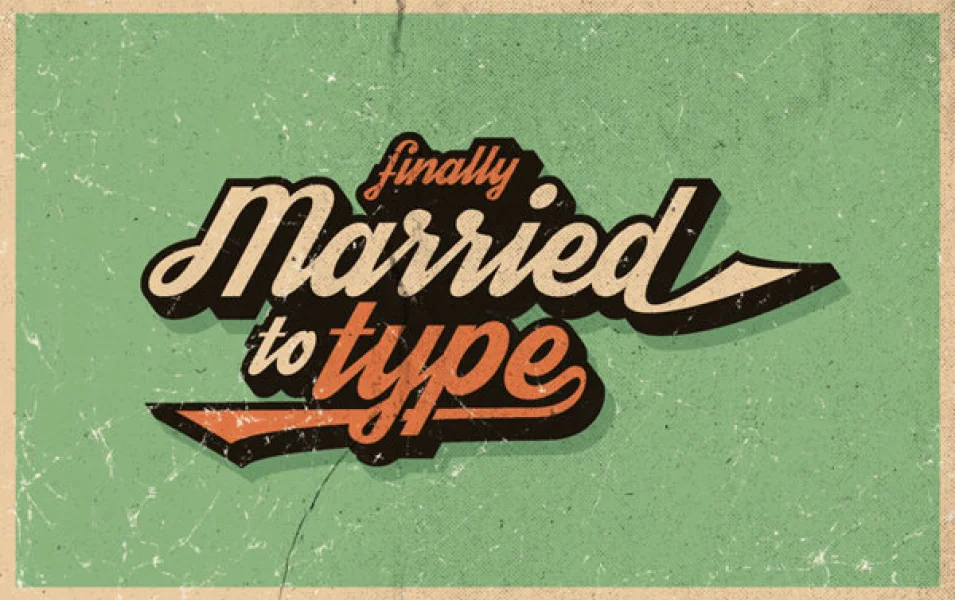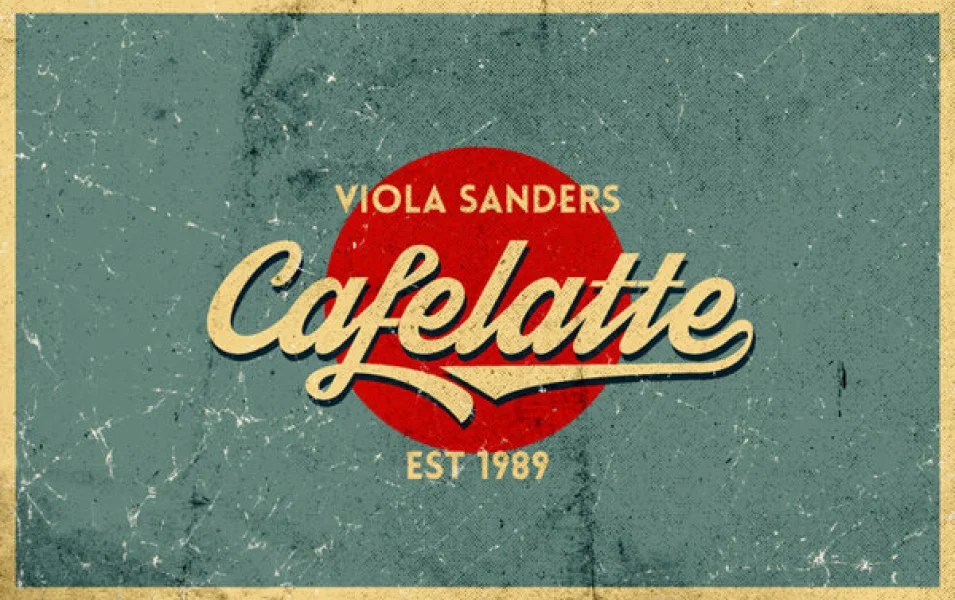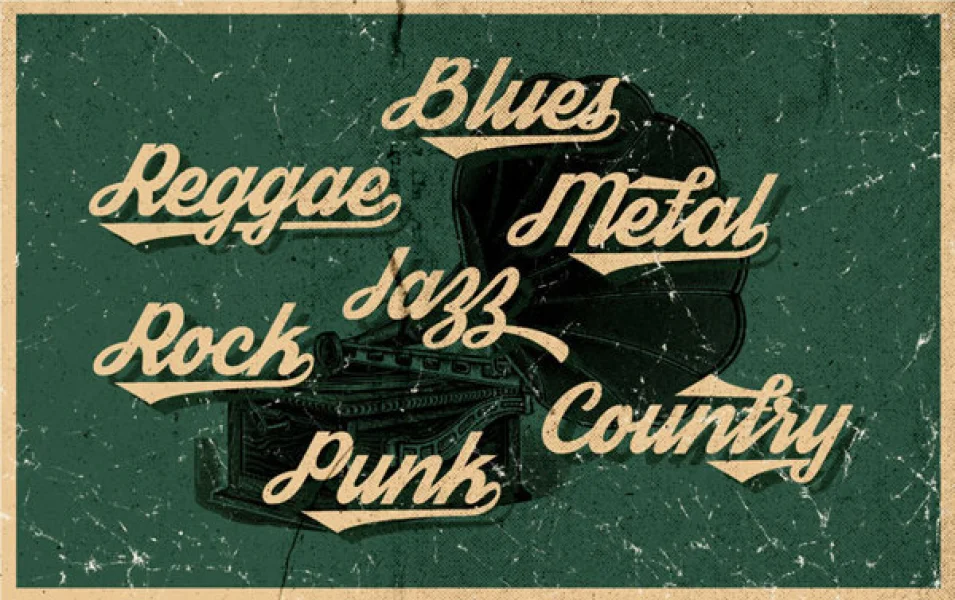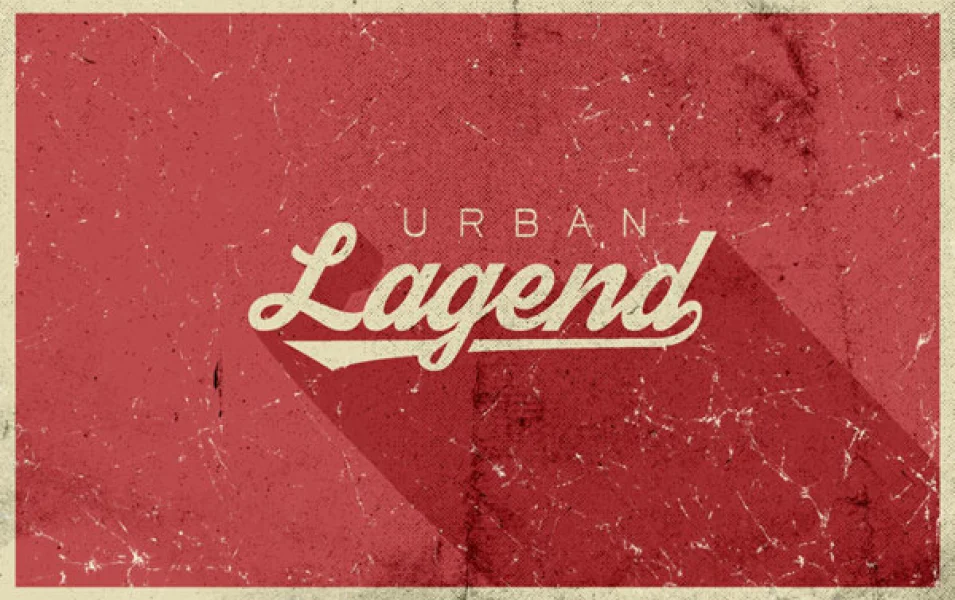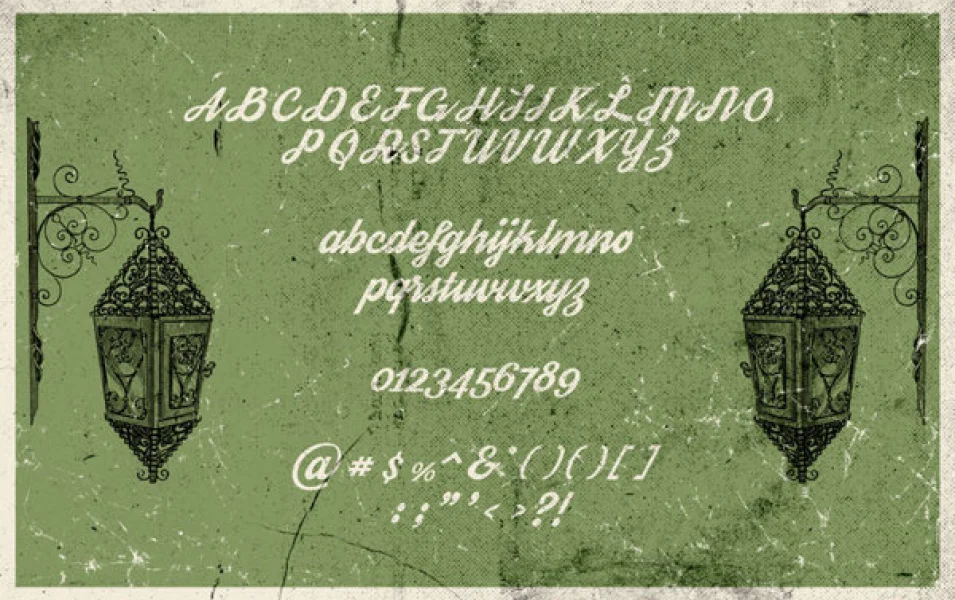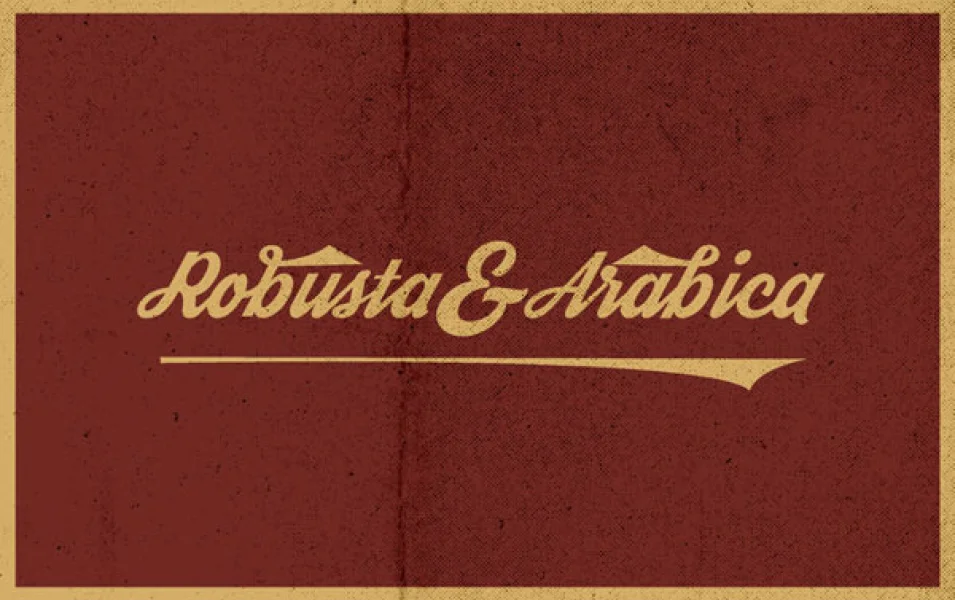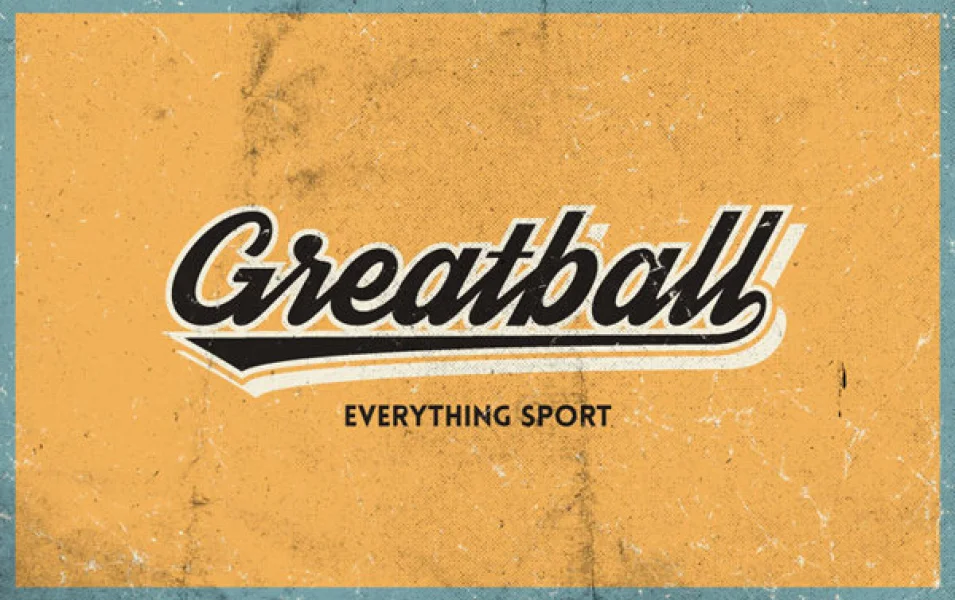
Streetwear is bold and stylish retro inspired script typeface suitable for logo, poster, branding, packaging and t-shirt design. It looks like 1960s and 70s fashion and sport related typeface, unique and fun at the same time. You can access Streetwear's alternate characters by using OpenType savvy program such as Adobe Illustrator and InDesign. Watch this Youtube video tutorial showing how to access Streetwear's opentype features in Adobe Illustrator.